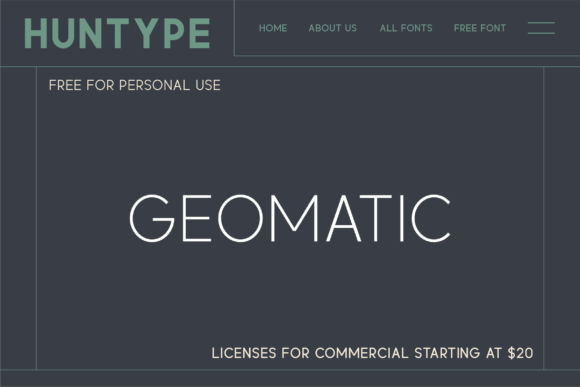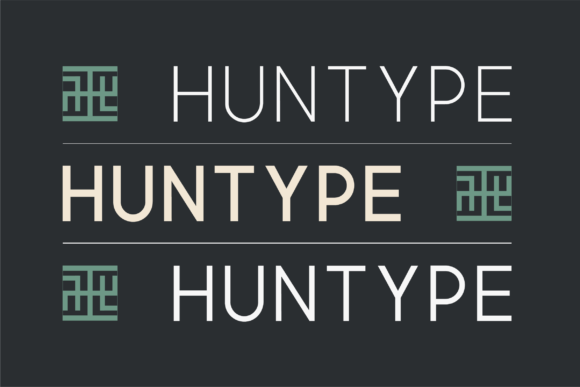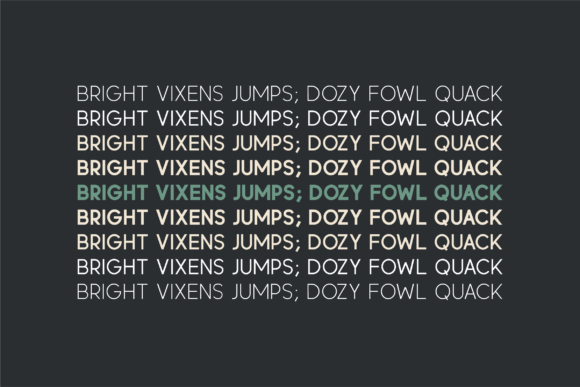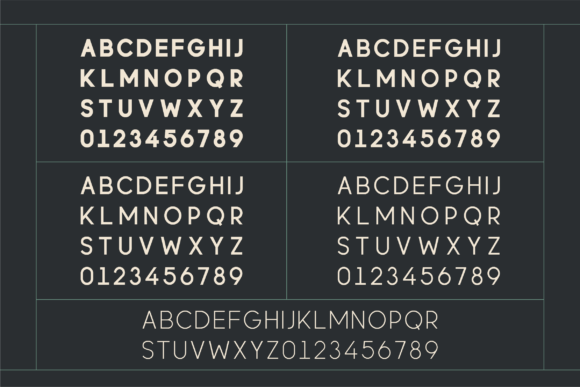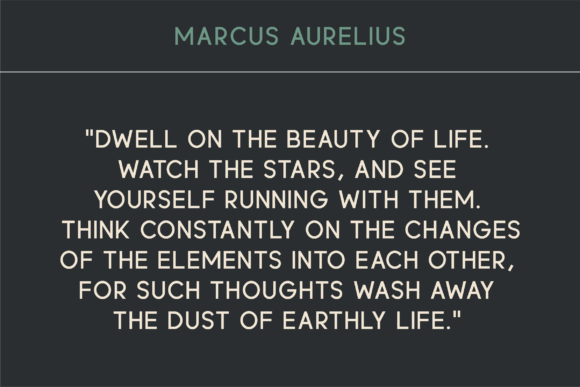
I still remember the countless hours I spent searching for the ideal font for a client’s branding project. The goal was to create a sophisticated and modern look, but every font I tried seemed to fall short. That was until I stumbled upon Geomatic, a font family that has since become my go-to for a wide range of design projects.
Introducing Geomatic: The Ultimate Font Family
Geomatic is a meticulously crafted font family that epitomizes elegance, modernity, and versatility. With its five distinct weights—THIN, LIGHT, REGULAR, BOLD, and BLACK—Geomatic offers a wide range of creative possibilities, making it the perfect choice for designers and content creators. Whether you’re aiming for a subtle and delicate touch or a bold and impactful statement, this font family’s seamless blend of sophistication and contemporary style ensures your projects will shine with distinction.
So, what makes Geomatic stand out from the rest? Here are a few things I love about this font family:
- ✨ Versatility: With five weights to choose from, Geomatic can be used for a wide range of projects, from elegant branding to bold headlines.
- ✅ Legibility: The font’s clean lines and modern design make it easy to read, even at small sizes.
- 💡 OpenType Features: Geomatic supports a range of OpenType features, including stylistic alternates, ligatures, and more.
Of course, no font is perfect, and Geomatic is no exception. Here are a few quirks to keep in mind:
- 🤔 Limited language support: Geomatic currently supports a limited range of languages, so be sure to check the font’s capabilities before using it for a multilingual project.
- ⚠️ Glyph limitations: While Geomatic includes a range of glyphs, it may not have every symbol or character you need.
Here are a few examples of the OpenType features you can expect to find in Geomatic:
- Stylistic Alternates: Geomatic includes a range of stylistic alternates, allowing you to customize the look of your text.
- Ligatures: The font includes a range of ligatures, which can be used to create a more elegant and refined look.
- Glyphs: Geomatic includes a range of glyphs, including symbols, icons, and more.
The Story Behind Geomatic
Geomatic was designed with the modern designer in mind. The font’s creator, a team of experienced typographers, set out to create a font family that would offer a unique blend of elegance, modernity, and versatility. After months of research and design, Geomatic was born.
| What is Geomatic? | Geomatic is a font family designed for modern designers and content creators. It offers a range of weights and styles, making it perfect for a wide range of projects. |
| What languages does Geomatic support? | Geomatic currently supports a limited range of languages. Please check the font’s capabilities before using it for a multilingual project. |